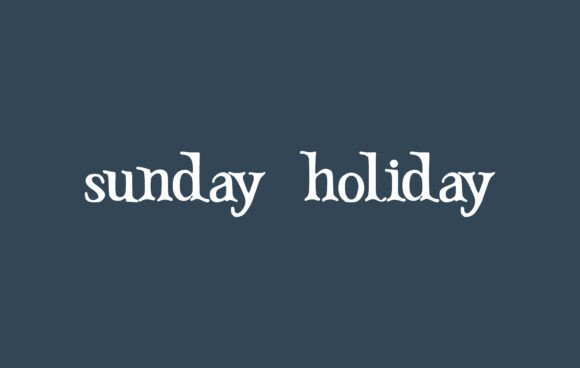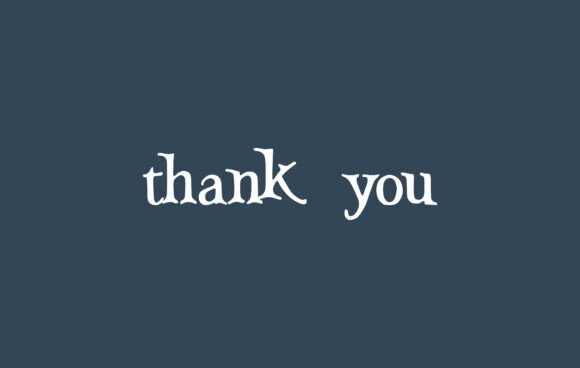
Discover the Charm of CreataGlimpse Font: Elevate Your Designs with a Romantic Touch
In the world of typography, fonts play a crucial role in conveying emotions and setting the tone for various designs. For creatives looking for a font that combines elegance with readability, CreataGlimpse emerges as a standout choice. This authentic font, infused with a romantic touch, is expertly designed to capture hearts and elevate your creative projects to new heights.
The Essence of CreataGlimpse Font
CreataGlimpse is not just another font; it’s an experience. Its design is centered around providing a romantic feel to any project it’s used in, making it perfect for a wide range of applications. Whether you’re working on magazine headlines, social media graphics, branding materials, wedding invitations, or greeting cards, CreataGlimpse offers the versatility and charm needed to make your designs truly memorable.
Why Choose CreataGlimpse?
There are several reasons why CreataGlimpse should be your go-to font for your next creative project:
- Legibility: One of the key features of CreataGlimpse is its exceptional legibility. This ensures that your message is conveyed clearly, whether it’s used as a title or body text.
- Versatility: Its elegant and romantic feel makes it suitable for a variety of design projects, from digital content to print materials.
- Aesthetic Appeal: The font’s design adds a touch of sophistication and charm to any design, making it stand out.
Applications of CreataGlimpse Font
The potential applications for CreataGlimpse are vast and varied. Here are some of the most notable uses:
- Magazine Headlines: Add a touch of elegance to your magazine titles and make them instantly captivating.
- Social Media Graphics: Stand out on social media platforms with eye-catching graphics that feature CreataGlimpse.
- Branding: Use CreataGlimpse to create a unique brand identity that exudes sophistication and romance.
- Wedding Invitations: Make your wedding invitations or any event invitations unforgettable with this beautiful font.
- Cards: Whether it’s a greeting card, a thank you note, or any other card, CreataGlimpse adds a personal touch.
Tips for Using CreataGlimpse Effectively
To make the most out of CreataGlimpse, consider the following tips:
- Mix and Match: Experiment with different sizes and colors to create visual hierarchy and emphasis.
- Pair it Wisely: Combine CreataGlimpse with complementary fonts to enhance its beauty and create contrast.
- Consider the Context: Ensure that the font size and style align with the overall theme and purpose of your design.
CreataGlimpse is more than just a font; it’s a tool that can transform your creative ideas into visually stunning designs. Its romantic touch, combined with its legibility and versatility, makes it an excellent choice for designers and crafters looking to add a touch of elegance to their projects. Whether you’re a professional designer or a DIY enthusiast, CreataGlimpse has the potential to elevate your designs and make them truly unforgettable.